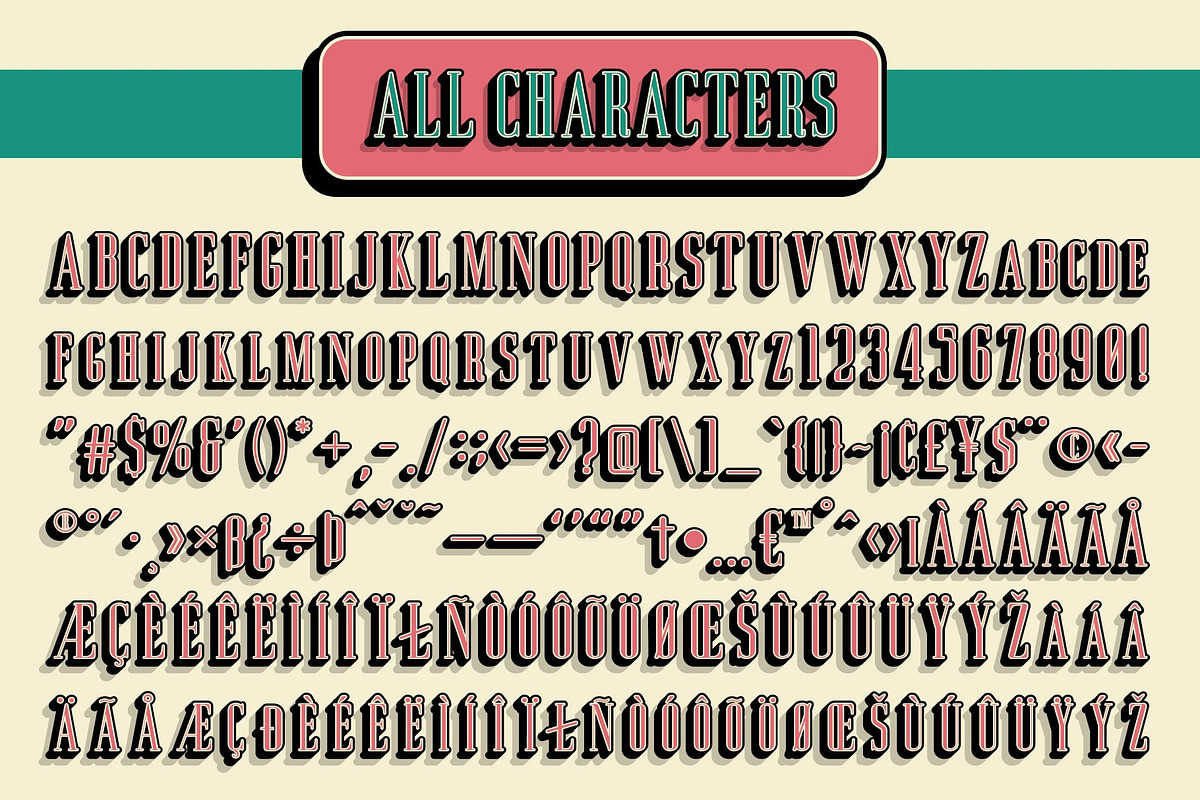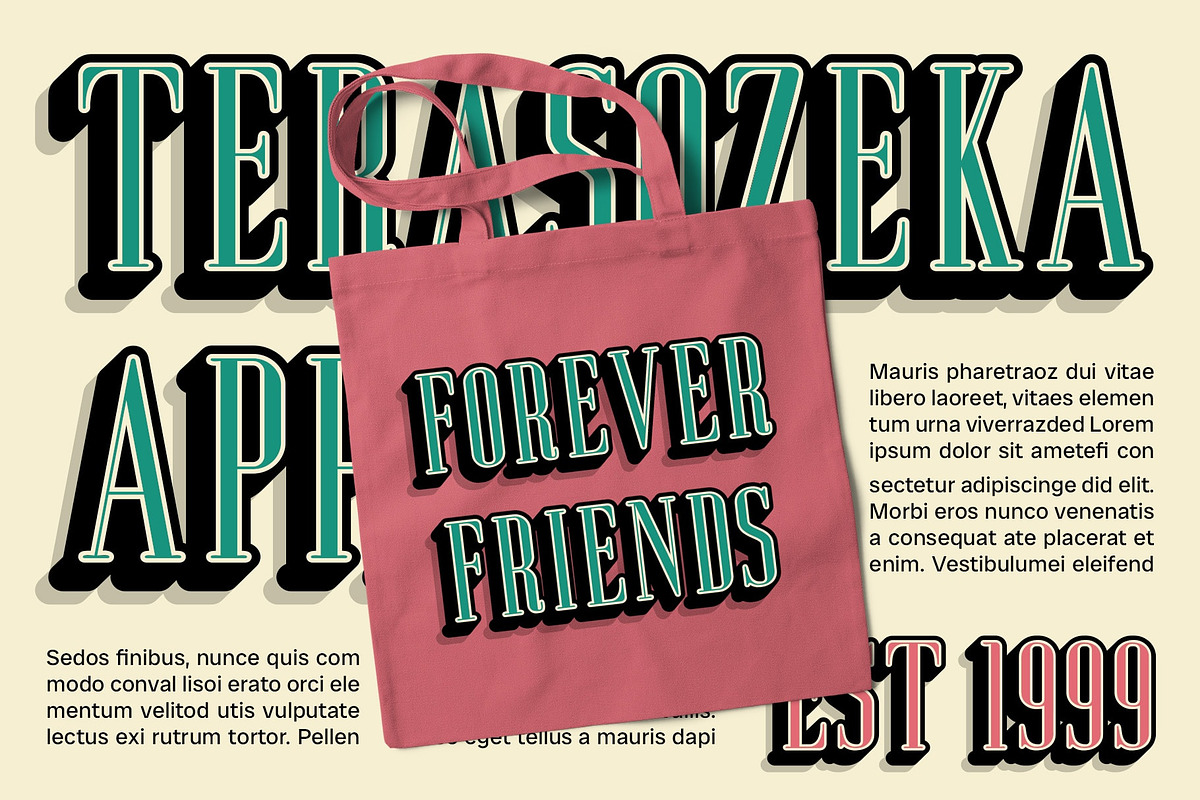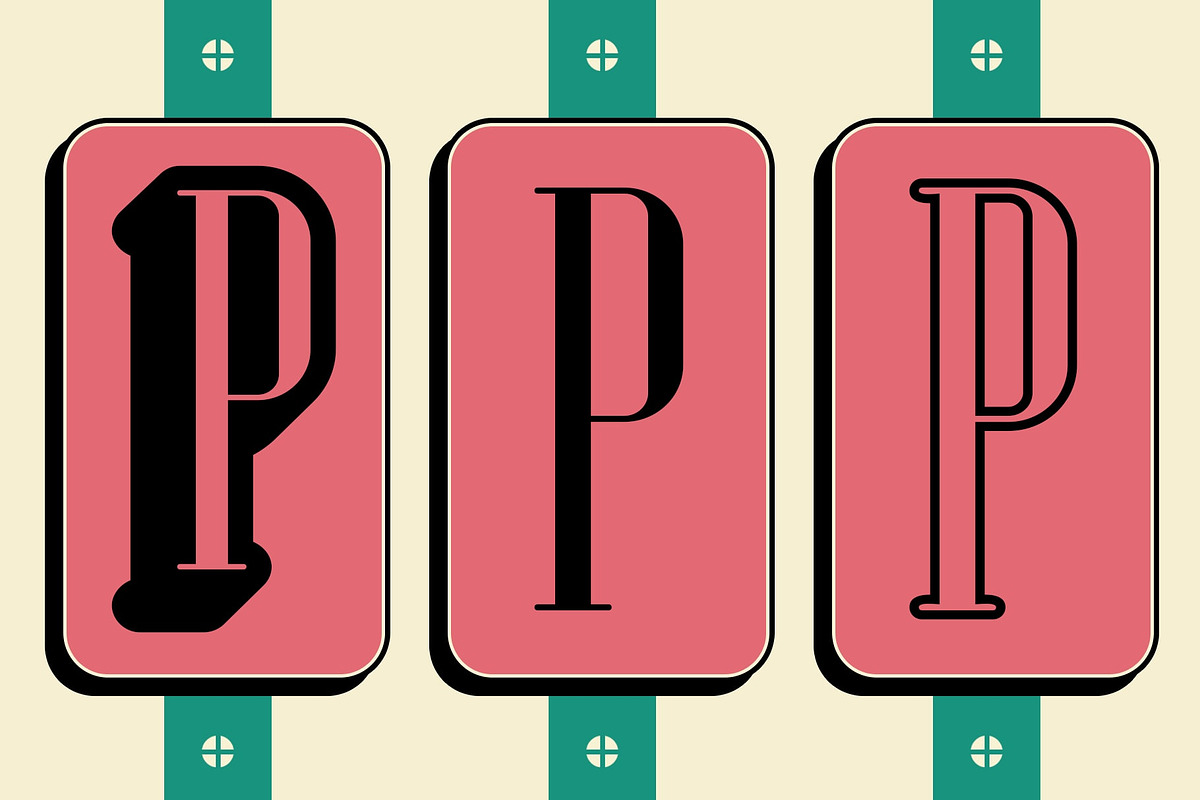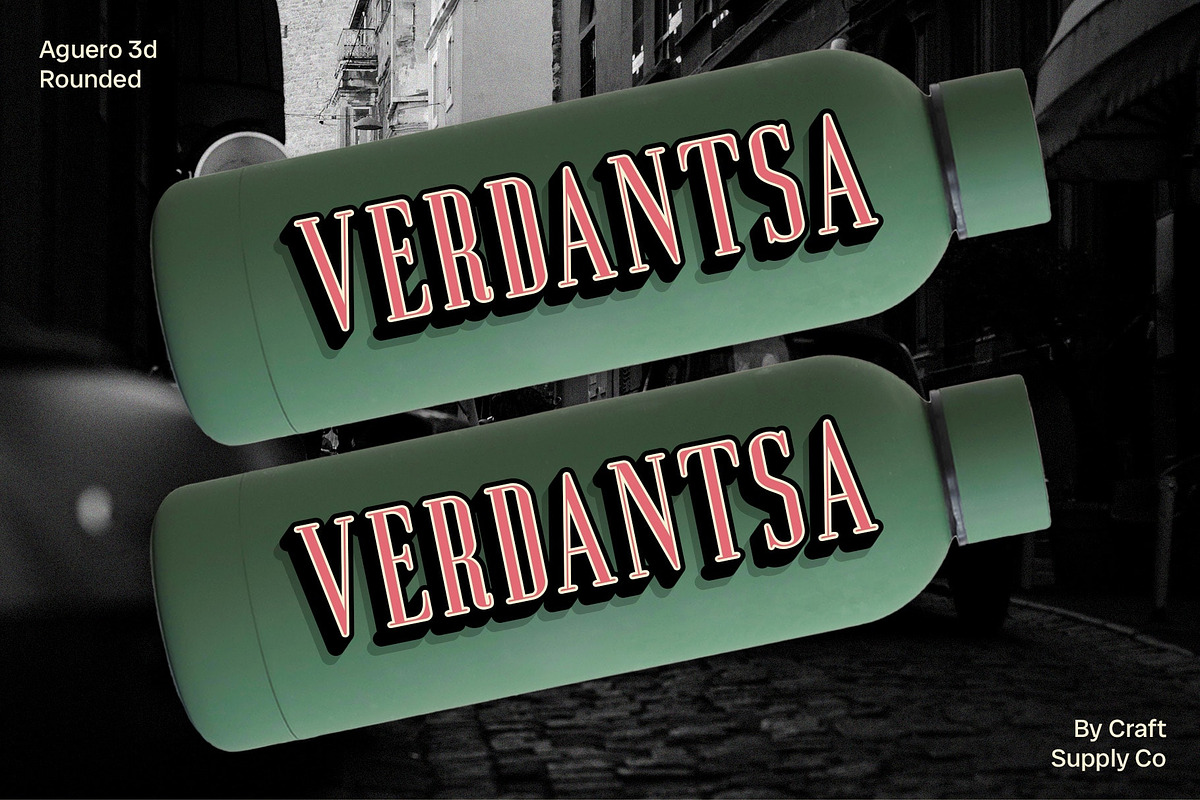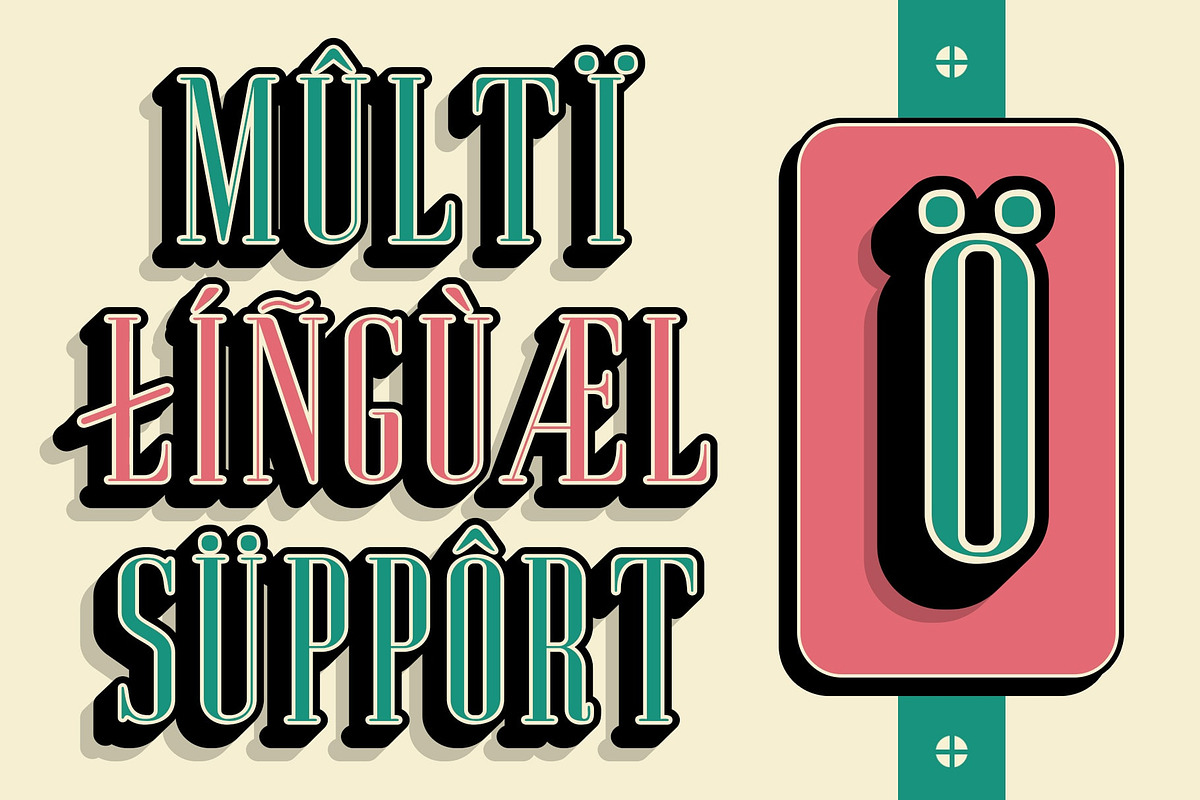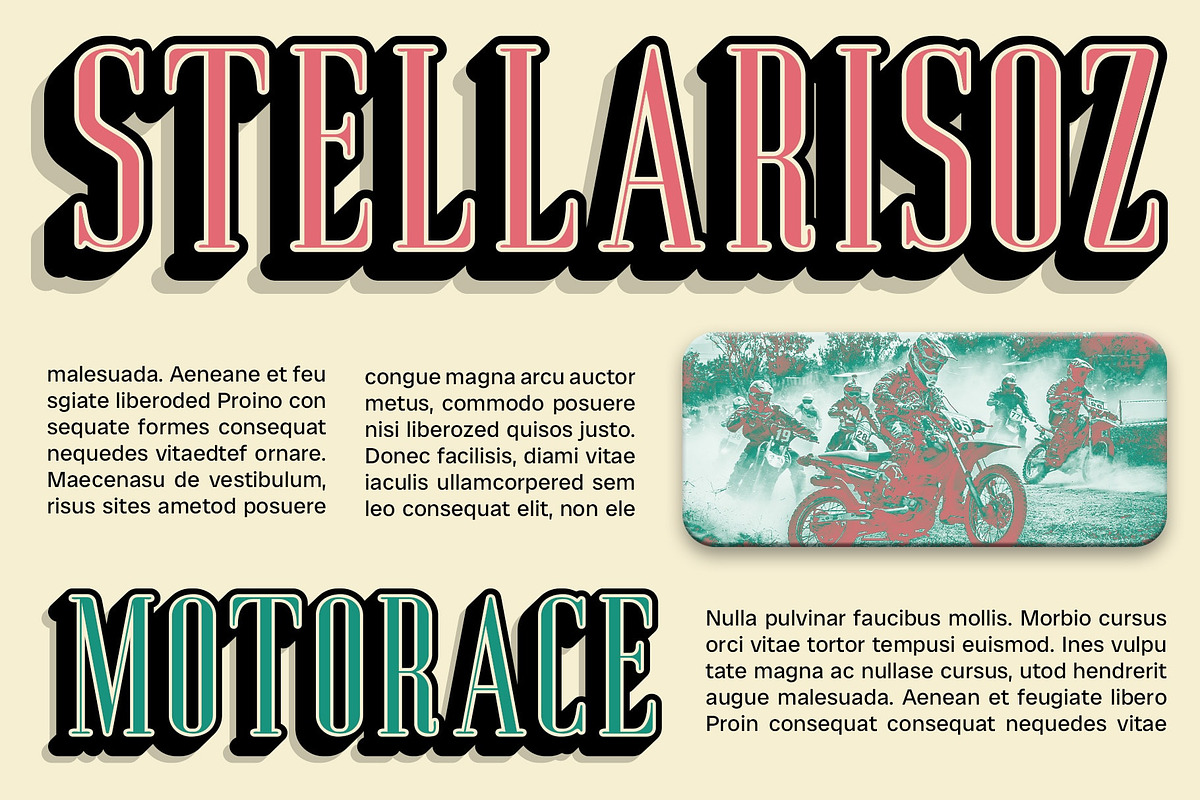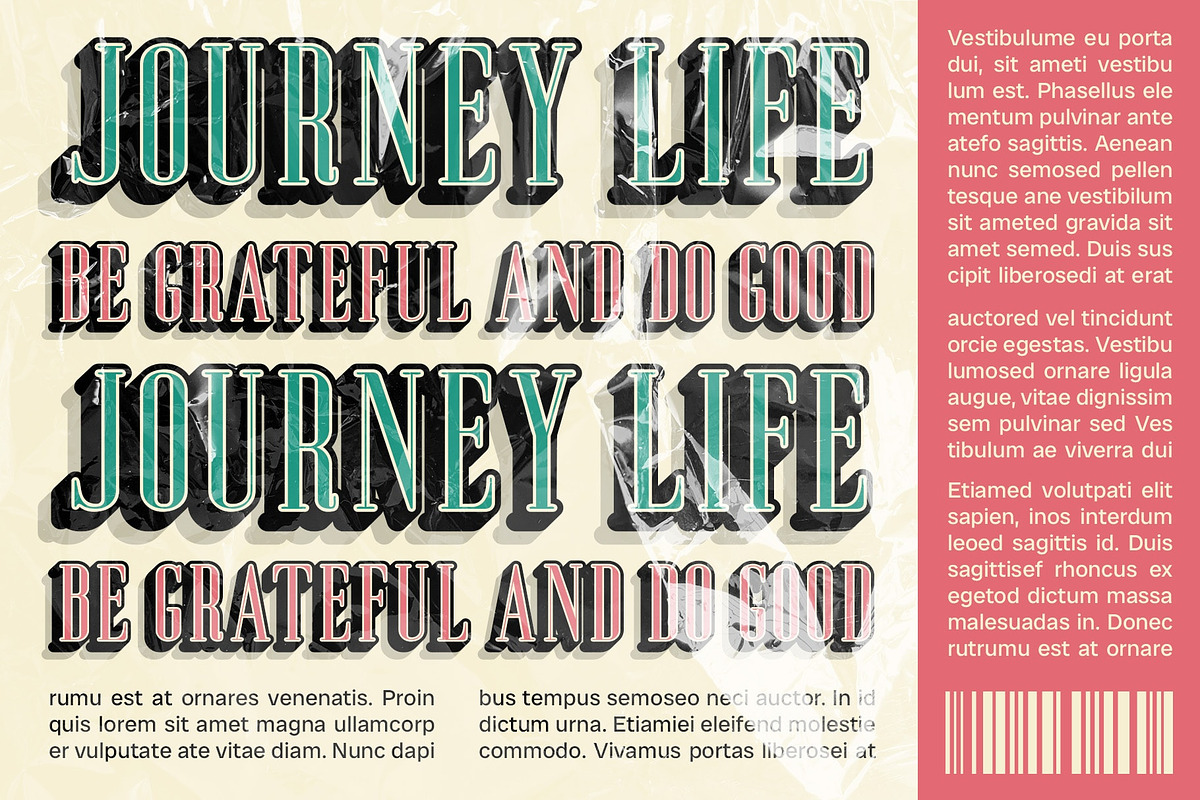
Aguero Serif Rounded 3D
Aguero Serif Rounded 3D: Blend of Modernity and Sophistication
Condensed Serif Design with Rounded Shapes
Aguero Serif Rounded 3D is a condensed serif font that combines a sleek design with rounded shapes, offering a soft yet firm appearance. Its condensed form ensures efficiency while its rounded elements add a touch of elegance.
Captivating 3D Effect
Enhancing its visual appeal, Aguero Serif Rounded 3D features an integrated 3D effect that brings depth and dimension to the font. This effect adds a modern and sophisticated look, making it suitable for designs that require a contemporary and stylish typeface.
Perfect for Modern Designs
Designed for projects aiming to blend modernity with sophistication, rounded 3D serif font is ideal for logos, branding materials, and editorial designs where a refined yet dynamic typography is essential. Its combination of rounded shapes and 3D effect ensures a memorable visual impact.
Versatile Application
Despite its elegant appearance, Aguero Serif Rounded 3D is versatile across various design applications. Whether used in digital interfaces, printed media, or packaging, this font maintains readability and clarity while adding a touch of sophistication.
Conclusion
In conclusion, this rounded 3D serif font is a condensed serif font that offers a blend of modernity and sophistication. With its rounded shapes and captivating 3D effect, this font enhances any design project with a modern, elegant, and visually appealing presence.